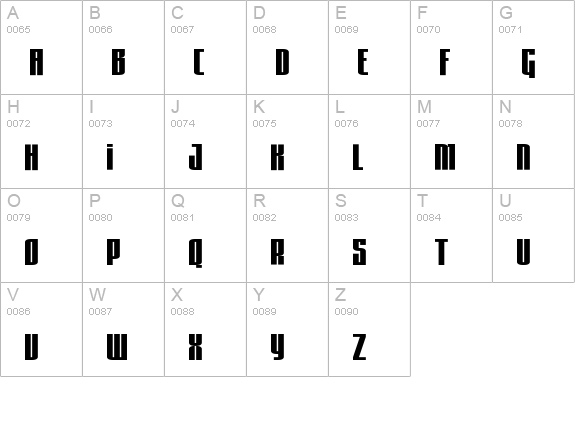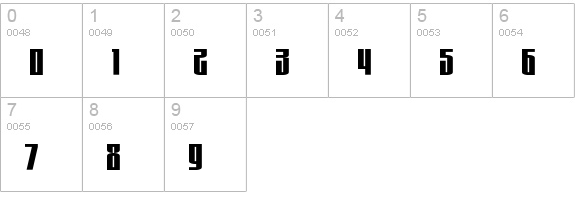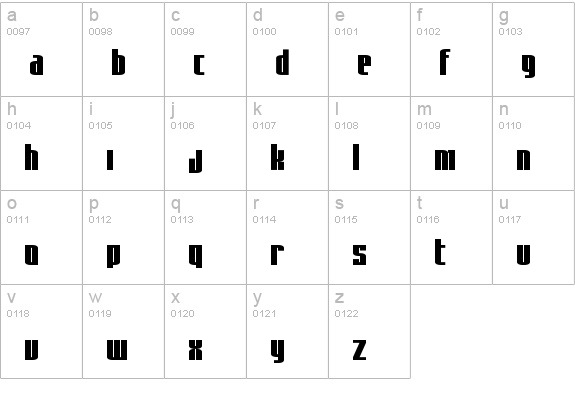
AsimovSans Font Details
AsimovSans is a modern and versatile font that combines sleek lines with a touch of elegance. Its clean and minimalist design makes it perfect for a wide range of projects, from branding to editorial design. The geometric shapes and well-balanced proportions give AsimovSans a contemporary look that is both professional and eye-catching. This font is available in multiple weights and styles, allowing for endless creative possibilities. Whether you're designing a logo, creating a website, or crafting a brochure, AsimovSans has got you covered. Its versatility and readability make it a great choice for both print and digital applications. Best of all, AsimovSans is completely free to download at FontsMarket.com. This means you can access this high-quality font without any cost, making it a valuable addition to your design toolkit. Don't miss out on the opportunity to enhance your projects with the beautiful AsimovSans font today!